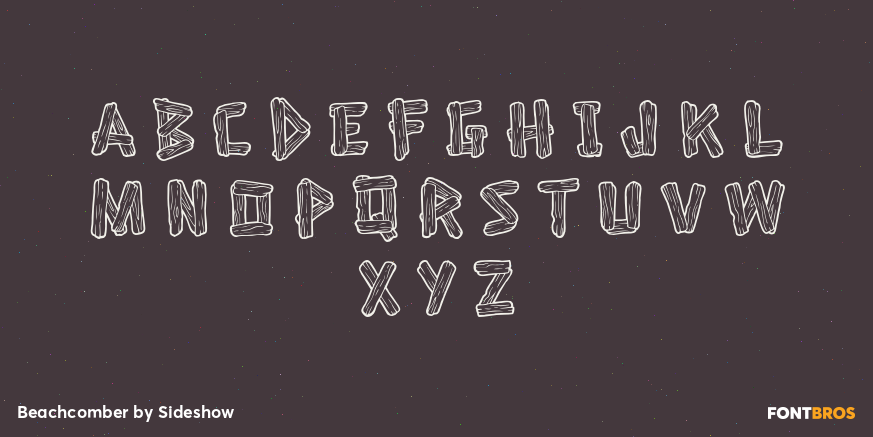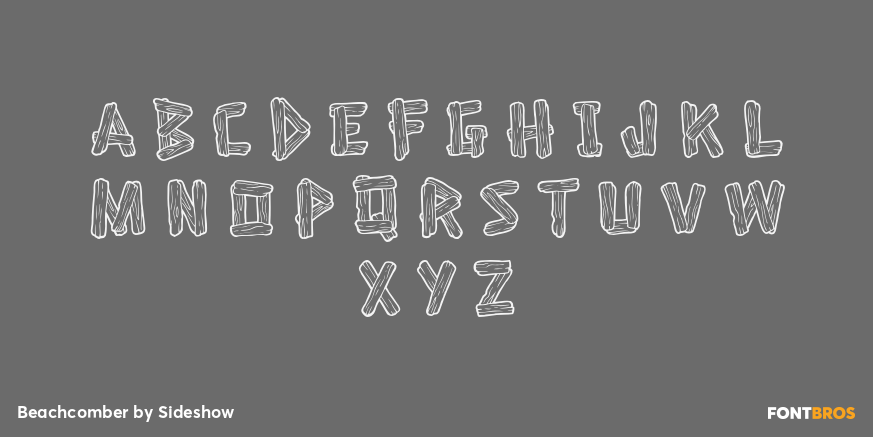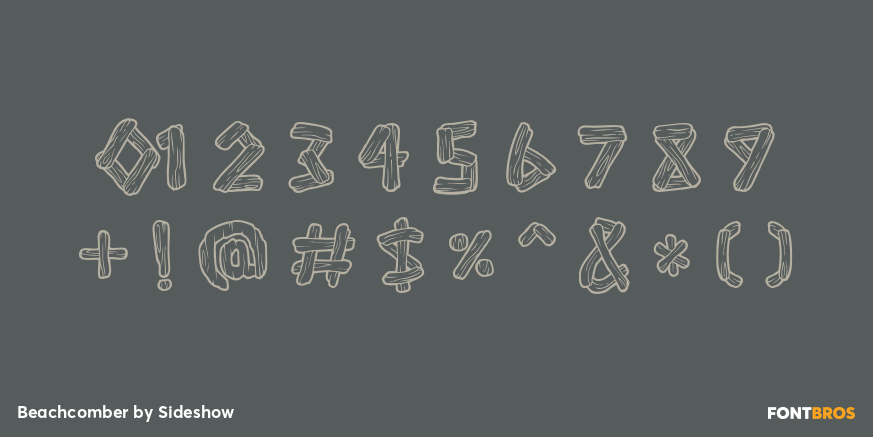
Beachcomber
Font Family by Sideshow
When we last left our shipwrecked pal Squid, he was gathering driftwood planks for firewood. But fate would soon intervene. As the roar of an approaching airplane grew louder, he scrambled to arrange the planks to form a distress signal. Unfortunately, in his hurry it was misspelled "HEPL" and the plane flew past. Thus Squid remained on the island to practice his spelling and perfect his accidental font.
Years later we brought him back to civilization where Beachcomber was reassembled into a handy digital format. Now you too can enjoy Beachcomber without the smell of rotting fish and all those pesky splinters!